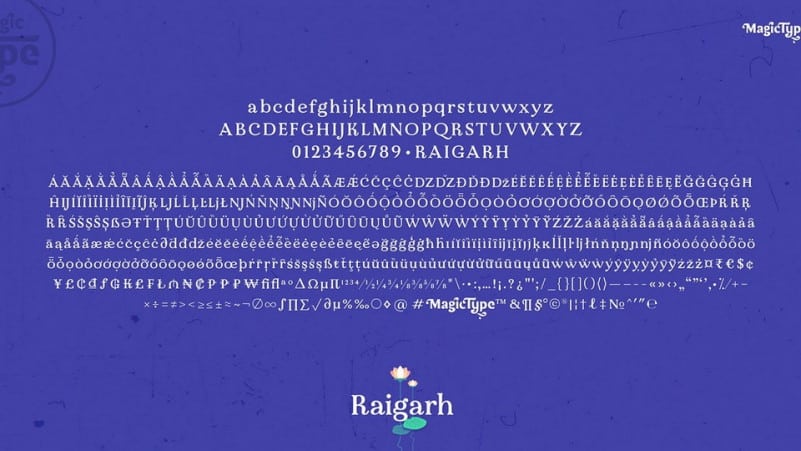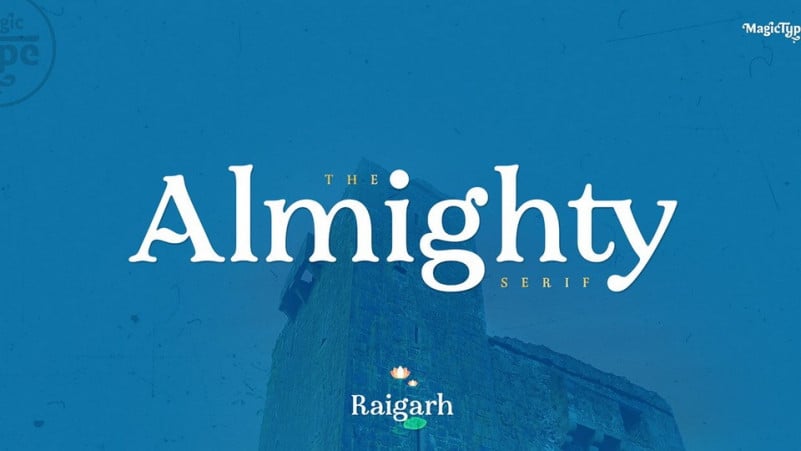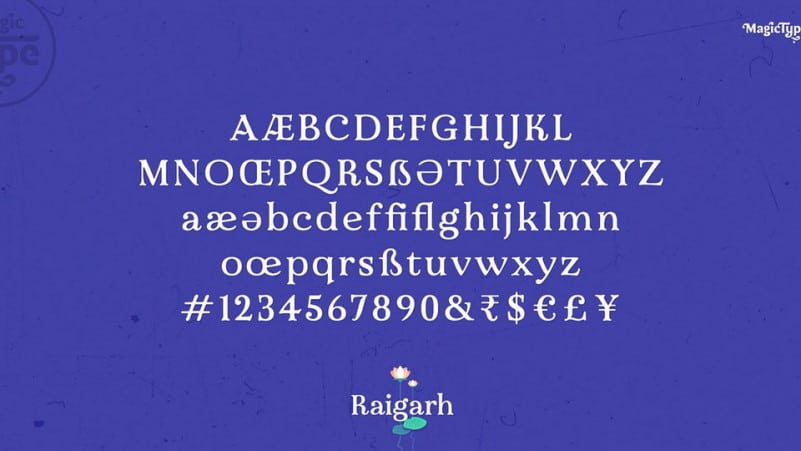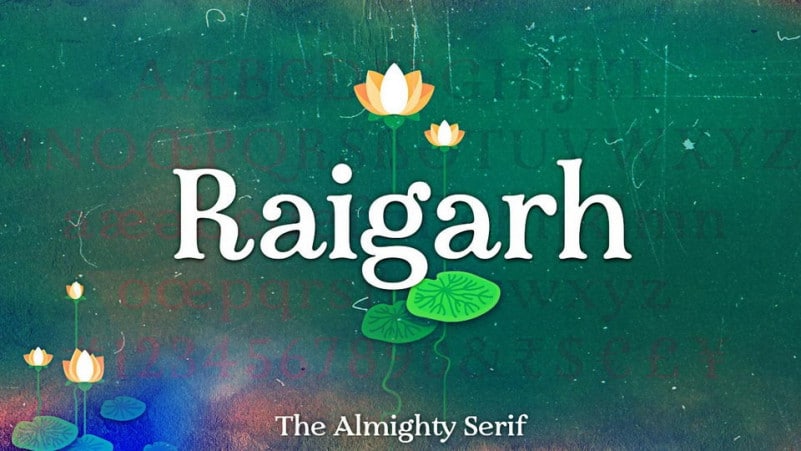
Raigarh Serif Font is a beautiful vintage soft vintage typeface. It’s a very versatile Typeface, covering a wide range project types, from wedding invitations, to bold magazine imagery, to branding and poster design, It’s designed and shared by jaikishan patel, a free Old style display serif typeface. The vintage style is perfectly suitable for historical classic movie posters, book covers, magazine covers, branding, art quotes and so much more!